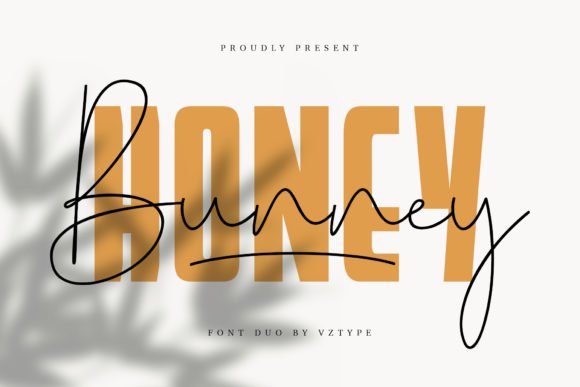
Unlock the Sweet Charm of Your Designs
Remember the moment when you stumbled upon the perfect font to elevate your design project? It’s a feeling that’s hard to replicate, but one that can make all the difference between a good design and a great one. For me, that moment came when I discovered the Honey Bunney Font duo.
This gorgeous font is designed to take your projects to the next level, with its unique charm and versatility making it a go-to choice for designers of all levels. Whether you’re working on a branding project, a web design, or a social media campaign, the Honey Bunney Font is the perfect addition to your toolkit.
What sets Honey Bunney Font apart is its ability to add a touch of warmth and personality to any design. It’s a valuable asset for designers looking to create engaging and memorable visual experiences that truly stand out from the crowd.
Honey Bunney Font Key Features
- Font Family: Honey Bunney is a playful, handwritten font designed for creative projects.
- Unique Characteristics: Honey Bunney features a unique, hand-drawn style with varying line widths and subtle imperfections, giving it a personal and charming feel.
Honey Bunney Font Review
Overall, I’m quite pleased with the Honey Bunney Font. It’s a playful, whimsical script font that’s perfect for adding a touch of personality to your designs.
- ✨ Unique character set: The Honey Bunney Font has a distinctive character set that’s both fun and elegant.
- ✨ Versatility: It’s suitable for a wide range of designs, from children’s books to packaging and advertising materials.
- ✨ Friendly feel: The font has a warm, approachable feel that makes it perfect for brands that want to connect with their audience on an emotional level.
However, I do have a few concerns:
- ⚠️ Limited font sizes: The font starts to lose its charm when it’s used at very small or very large font sizes.
- ⚠️ Limited language support: The font may not be suitable for languages that require a more complex character set.
Overall, I’d give the Honey Bunney Font 4 out of 5 stars. It’s a fun and versatile font that’s perfect for designers who want to add a touch of personality to their designs. However, it’s not without its limitations, and designers should be aware of these before using it in their projects.
Getting the Most Out of Honey Bunney Font
For best results, use the Honey Bunney font in a design that features a playful and whimsical style.
Combine it with bold colors and playful graphics to create a unique and eye-catching design.
Use it for projects such as social media graphics, party invitations, and children’s book illustrations.
Alternatives to Honey Bunney Font
Great Vibes is a modern, elegant script font. It’s perfect for creating a sophisticated and stylish look for invitations, wedding stationery, or any other design that requires a touch of luxury.
Compared to Honey Bunney Font, Great Vibes has a more refined and polished feel, making it suitable for high-end designs. While Honey Bunney Font has a more playful and whimsical vibe, Great Vibes is ideal for creating a more mature and sophisticated look.
Cobblestone Font
Cobblestone is a vintage-inspired font with a distressed texture, giving it a unique and eclectic feel. It’s perfect for designs that require a touch of nostalgia and character.
Compared to Honey Bunney Font, Cobblestone has a more rugged and weathered look, making it suitable for designs that need a vintage or antique feel. While Honey Bunney Font is more playful and modern, Cobblestone is ideal for creating a retro or vintage-inspired look.